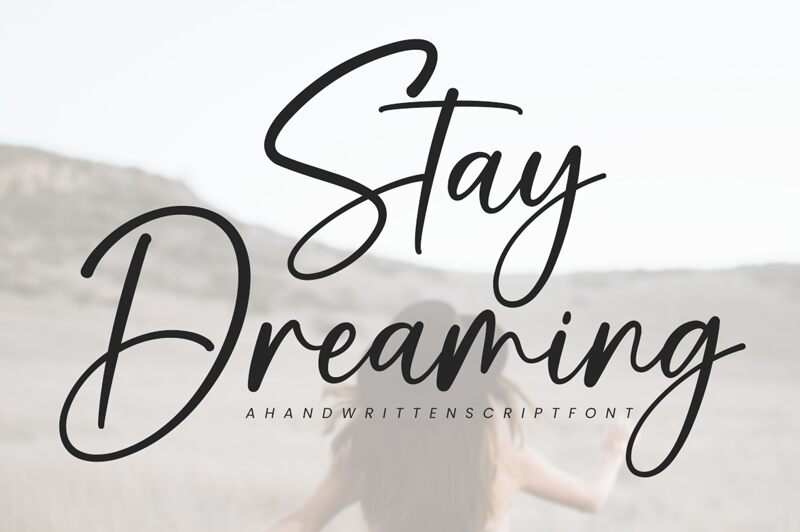
Stay Dreaming
Stay Dreaming is a stunning calligraphy font designed by Ramli Setiadi. Its semi-light weight gives it an airy and delicate feel, perfect for projects that require a touch of elegance and sophistication. From wedding invitations to branding and packaging designs, Stay Dreaming adds a romantic and dreamy vibe to any project. Its flowing strokes will make your text look like handwritten script, adding a personal touch to your creations. Let Stay Dreaming take you on a journey through the clouds with its whimsical style - it's sure to inspire creativity in every project!